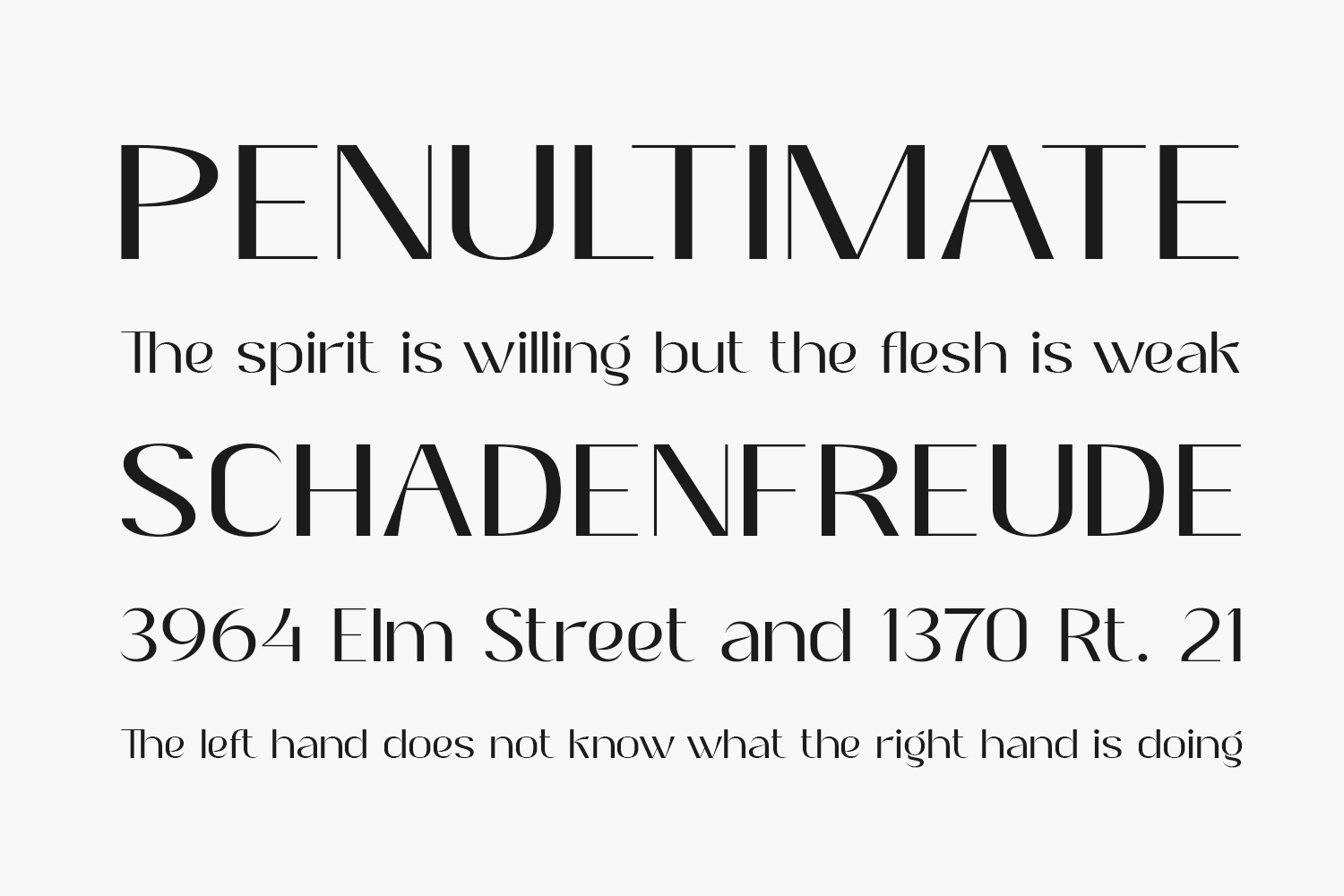
Kalivo Free Font is an elegant and thin lettered sans serif font. It is defined by smooth curves and is perfect for fashion branding or editorial designs. Add it confidently to your projects, and you will love the results. Kalivo Free Font was designed by Eka Hermawan and is free for personal use only. Please purchase the full version for commercial use.